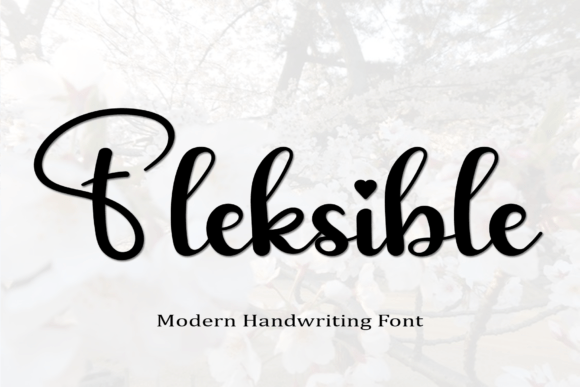
Embark on a typographic adventure with Fleksible Font, a mesmerizing script font that oozes charm and elegance. Its enchanting curves, inspired by the fluidity of handwritten letters, will captivate your audience and leave a lasting impression on their minds.
Fleksible Font is more than just a font; it's a conduit for your creative expression. With its natural and flowing lines, it effortlessly adds a touch of personality and sophistication to your designs. Whether you're crafting stunning logos, eye-catching headlines, or any other creative endeavor, Fleksible Font is the perfect partner to bring your vision to life.
Step into a world of limitless possibilities. Fleksible Font's versatility shines in its ability to seamlessly blend with a myriad of aesthetics. From traditional to contemporary, minimalist to extravagant, this font effortlessly adapts to your unique style. Its harmonious nature makes it a perfect complement to any design project, enhancing it with a touch of timeless elegance.
This beautiful script font is more than just a collection of letters. It's an invitation to embark on a journey of creativity, where your imagination takes center stage. Fleksible Font is not just a tool; it's a muse, guiding you toward extraordinary designs that captivate and inspire.
Join the ranks of discerning designers who recognize the magic of Fleksible Font. This extraordinary creation will elevate your work to new heights, transforming your designs into true works of art. Experience the Fleksible Font difference today and let your creativity soar!